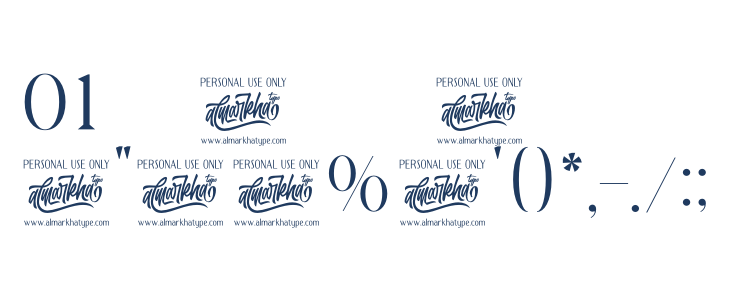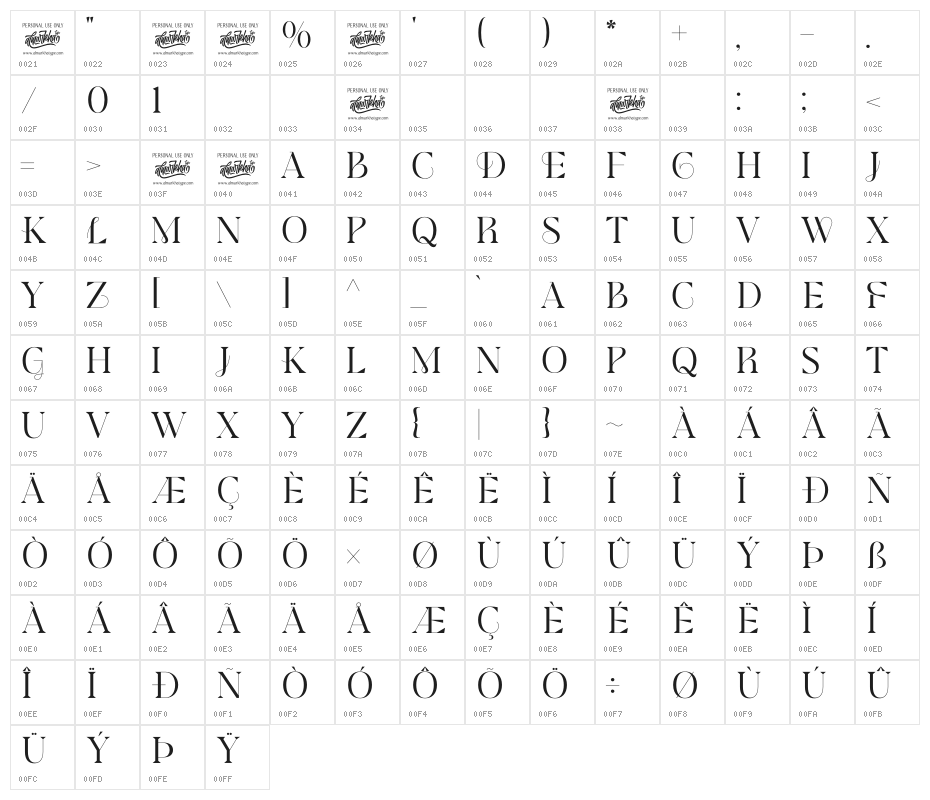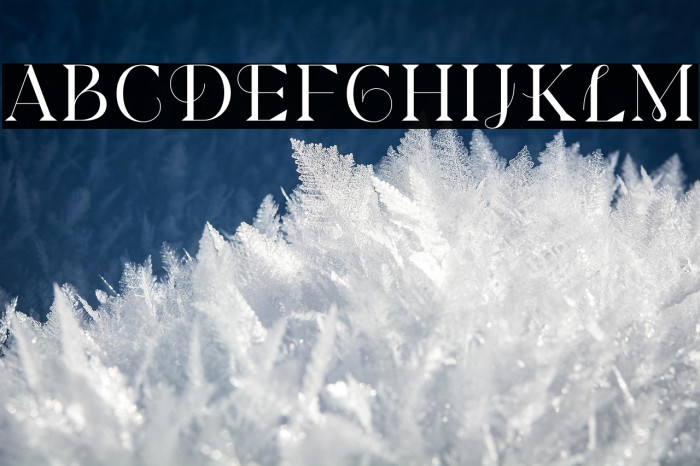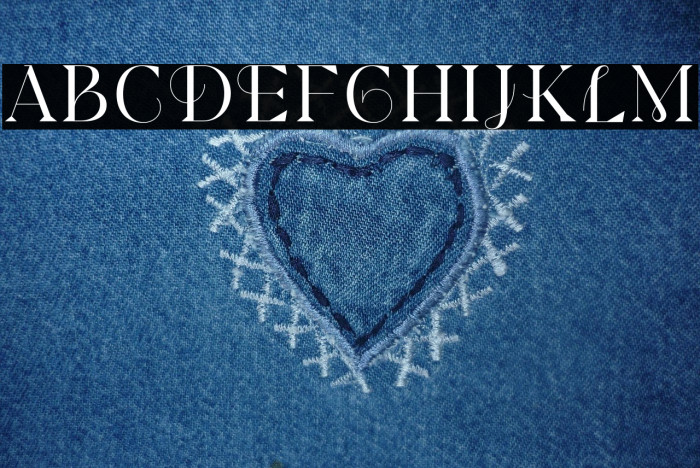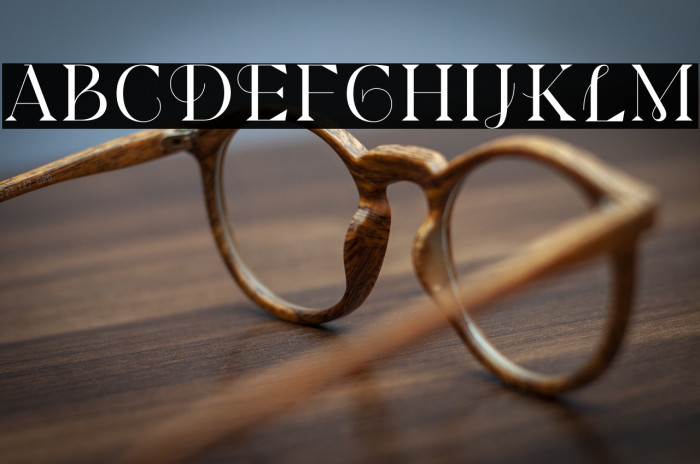
Modesfa Font
Modesfa Description
This font features an elegant and sophisticated design with a blend of classic and modern elements. The uppercase letters are adorned with unique flourishes and curves, giving them a decorative and artistic flair. The strokes vary in thickness, providing a medium contrast that enhances readability while maintaining a stylish appearance. The numerals and special characters complement the overall aesthetic, making it versatile for various design applications. The font's refined style is suitable for projects that require a touch of elegance and creativity.
| Overall Style | Elegant and Artistic |
| Use Case | Headlines, Logos, Invitations |
| Proposed Projects | Ideal for wedding invitations, luxury branding, fashion magazines, and artistic posters. |